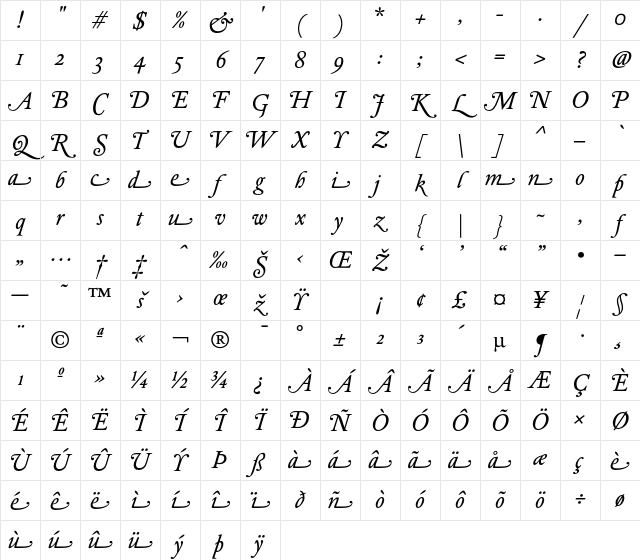
DTLElzevirTBookSwash Italic
Design Context for DTLElzevirTBookSwash
DTLElzevirTBookSwash flows with the natural rhythm of handwritten lettering, making it ideal for designs that call for warmth and personal expression.
Font Pairing: Combine DTLElzevirTBookSwash with a simple geometric sans for maximum contrast - the tension between flowing curves and clean structure is a classic typographic pairing.
Pro Tip: Use DTLElzevirTBookSwash for short runs of text - names, titles, or taglines. Extended body copy in script faces tires the eye quickly.